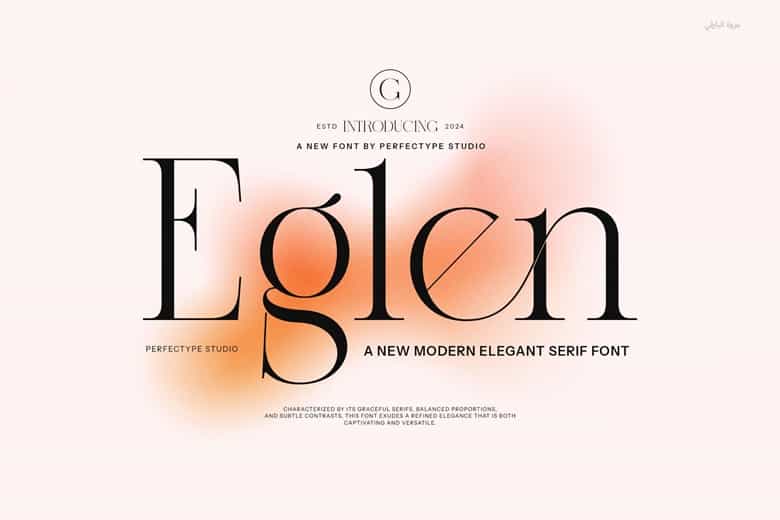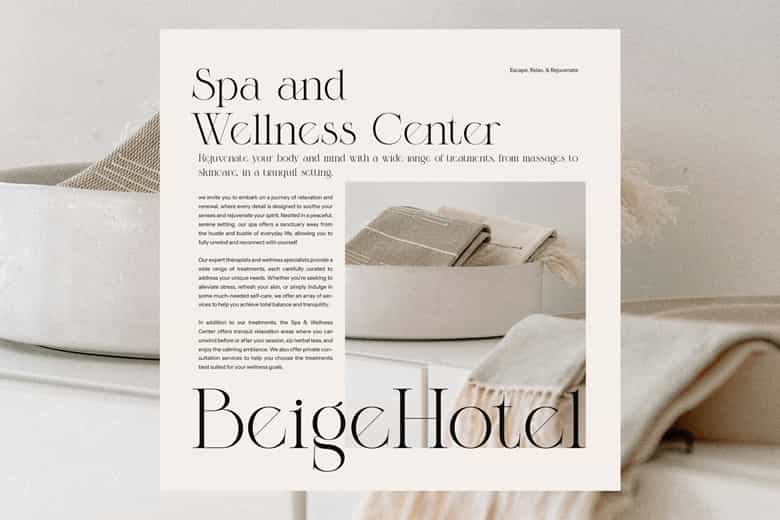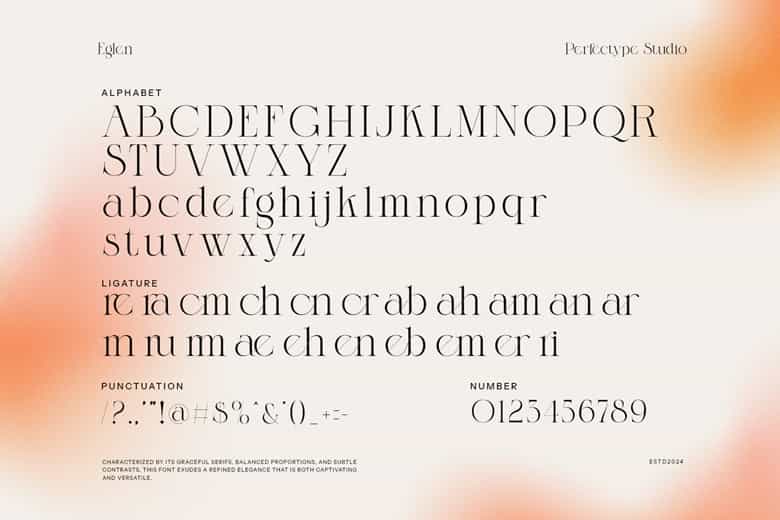
Eglen is a beautiful and professional serif font well suitable for all branding and logo purposes. This font has been designed with an eye on the elegance as well as style and is perfect for many applications. It includes a fine and sophisticated set of ligatures and alternates, which give a creative freedom.